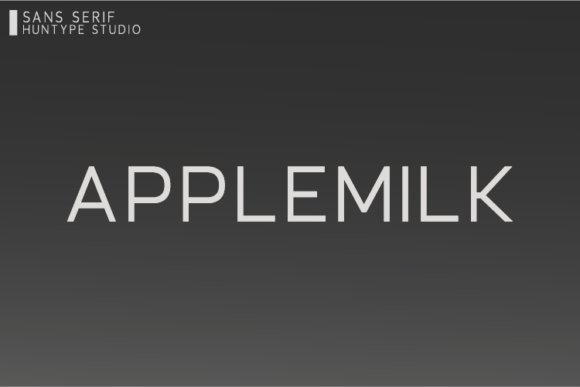
Step into the world of Applemilk, where fonts become enchanting works of art. Each character is a meticulously crafted masterpiece, designed to evoke emotions and inspire creativity. Our team of font enthusiasts has carefully curated this collection to provide you with the perfect tools to transform your designs into captivating masterpieces.
These fonts are more than just letters on a screen; they are the building blocks of your brand identity. With Applemilk, you have the power to create logos that exude sophistication, branding that commands attention, and web headings that dance before the eyes of your audience. The smooth and delicate lines of our fonts are a symphony of elegance, guiding your readers through your content with effortless grace.
But Applemilk is not just about aesthetics; it's about functionality. These fonts are designed to be highly legible, ensuring that your message is conveyed with crystal clarity. Whether you're creating marketing materials, website content, or social media graphics, Applemilk fonts will empower you to communicate your ideas with impact.
With Applemilk, you'll discover a font family that is as versatile as your imagination. Whether you're crafting invitations for a grand celebration or designing packaging for a new product launch, Applemilk has the perfect font to match your vision. Embrace the limitless possibilities and let your creativity soar.